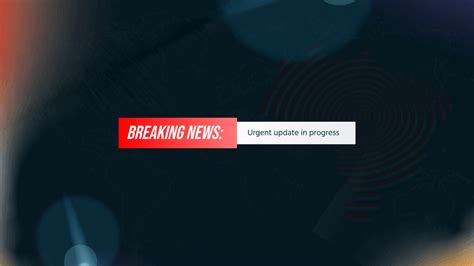
F1 Breaking News: Choosing The Right Font Template
F1 Breaking News: Choosing the Right Font Template
Hey guys! Ever wondered what goes into making those eye-catching F1 breaking news graphics? A crucial, yet often overlooked, element is the font. Choosing the right font template can dramatically impact how your news is perceived. It needs to grab attention, convey urgency, and maintain readability, all while aligning with the overall branding of Formula 1. Let’s dive into the world of font selection for F1 breaking news templates!
The Importance of Font Choice in F1 Breaking News
In the fast-paced world of Formula 1 , where every second counts, the font used in breaking news announcements plays a pivotal role in capturing attention and conveying information swiftly. Think about it: when a major event unfolds – a dramatic crash, a surprise pit stop, or a sudden weather change – the accompanying graphic needs to communicate the news instantly. The font is at the heart of this communication process. A well-chosen font can amplify the sense of urgency and excitement, making viewers sit up and take notice. Conversely, a poorly chosen font can lead to confusion, misinterpretation, or even a complete failure to engage the audience.
Readability is paramount . The font must be clear and easy to read, even at a glance. This is especially critical for viewers who may be catching the news on smaller screens, such as smartphones or tablets. Imagine trying to decipher a complex, ornate font while watching a race on your phone – it’s a recipe for frustration! Therefore, selecting a font that prioritizes legibility is crucial. This means considering factors such as font size, letter spacing, and the thickness of the strokes.
Brand consistency is another key consideration. Formula 1 has a distinct visual identity, and the font used in breaking news should align with this brand aesthetic. This helps to reinforce brand recognition and create a cohesive viewing experience. Using a font that clashes with the overall F1 branding can create a jarring effect and dilute the impact of the news. The font should complement the other visual elements of the graphic, such as the colors, logos, and background images, to create a unified and professional look.
Furthermore, the font needs to convey the right tone . Breaking news often requires a sense of urgency and authority, and the font should reflect this. A bold, strong font can project confidence and importance, while a lighter, more playful font might seem inappropriate for serious news announcements. The font should also be versatile enough to work across different types of breaking news, from major accidents to more lighthearted stories. Choosing a font that strikes the right balance between seriousness and approachability is essential for effective communication.
In short, the font used in F1 breaking news is far more than just a visual detail – it’s a critical element that impacts readability, brand consistency, and the overall tone of the message. Selecting the right font is an investment in effective communication and can significantly enhance the impact of breaking news announcements.
Key Characteristics of a Good F1 Breaking News Font
So, what makes a font perfect for F1 breaking news ? A few key characteristics stand out. You’ll want something that screams speed , tech , and high-performance , just like the sport itself!
• Readability: This is huge . If people can’t read it quickly and easily, they’ll miss the news. Opt for fonts with clear, simple letterforms and good spacing.
• Boldness: Breaking news needs to grab attention. A bold font weight will ensure the text stands out, even in busy environments.
• Modern & Technical Look: Think clean lines and a slightly futuristic feel. Avoid anything too traditional or ornate.
• Versatility: The font should work well for headlines, subheadings, and body text. It needs to be adaptable to different screen sizes and resolutions.
Alright, let’s get into some specific examples! While the official F1 font is often proprietary, there are plenty of similar options that capture the same vibe. Here are a few popular choices that designers often consider for breaking news templates:
1. Bebas Neue: This is a classic sans-serif font known for its tall, condensed letters and clean design. It’s incredibly readable and works well for headlines and titles. It exudes modernism and is perfect for delivering impactful messages quickly.
2. Montserrat: Another solid sans-serif option, Montserrat offers a slightly more rounded and approachable feel than Bebas Neue. Its versatility makes it suitable for both headlines and body text. Plus, it has different weights, giving you creative freedom. It’s like the reliable teammate you can always count on to perform well under pressure.
3. Roboto: This is Google’s go-to font, and for good reason! It’s clean, modern, and incredibly versatile. It also renders well on a wide range of devices, making it a safe bet for breaking news templates. With its mechanical skeleton and largely geometric forms, Roboto is modern yet approachable.
Examples of Effective Font Use in F1 News
To really drive the point home, let’s look at some hypothetical examples. Imagine these scenarios and how different fonts might affect the message: